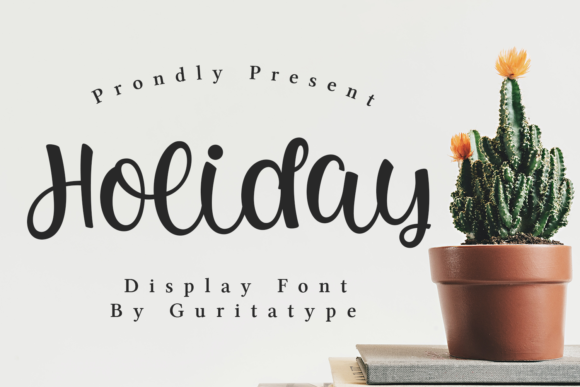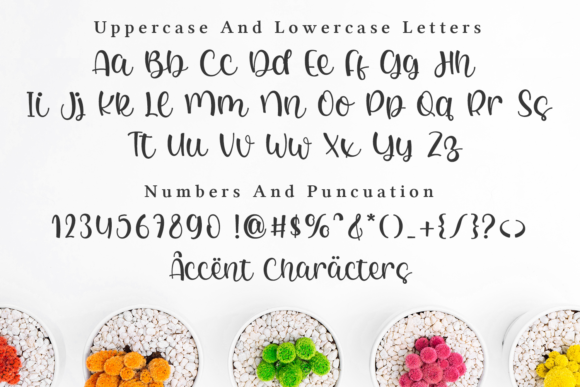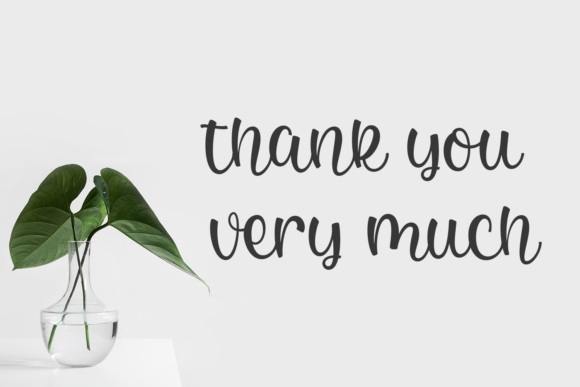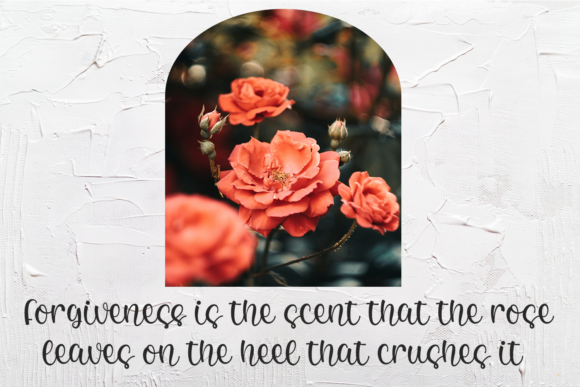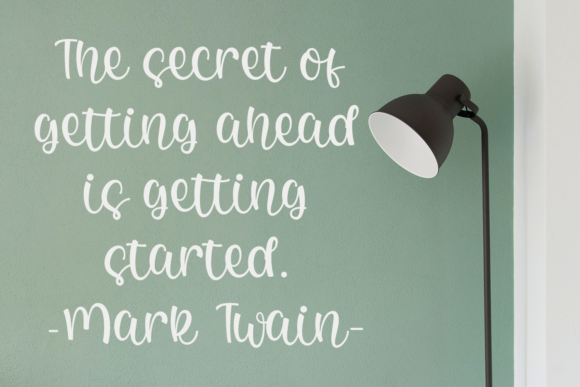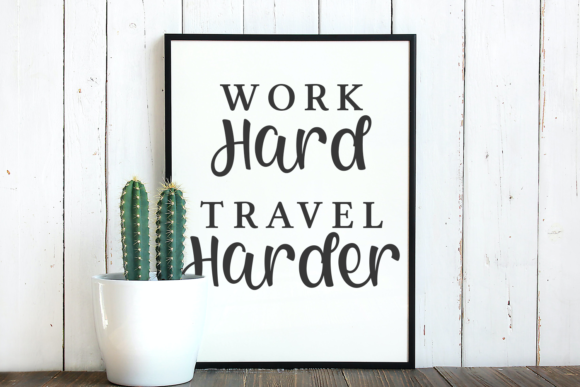
Holiday Font
About Holiday Font
Holiday is a sweet and flowing script font with round letterforms that add a touch of elegance and charm to your designs. Its smooth and graceful strokes create a visually appealing composition that captures attention. This font’s versatility allows it to be matched with a wide range of projects, making them stand out and shine.
The sweet and flowing nature of Holiday sets it apart and adds a sense of joy and sophistication to your designs. The font’s round letterforms create a visually pleasing rhythm and balance, evoking a warm and friendly atmosphere. It adds a touch of elegance and charm, making your creations visually captivating and memorable.
Holiday’s versatility makes it suitable for an incredibly large set of projects. Whether you’re working on branding materials, wedding invitations, greeting cards, social media posts, or any other creative endeavor, this font adapts seamlessly to different contexts. Its smooth and flowing style enhances the overall aesthetic and brings a sense of grace to your designs.
By incorporating Holiday into your projects, you infuse them with a sense of joy and elegance. The font’s sweet and flowing script style adds a touch of charm that makes your designs stand out and shine. Embrace the versatility of Holiday, and notice how it elevates the look of your creative ideas, making them visually captivating and memorable.
In summary, Holiday is a sweet and flowing script font with round letterforms that add elegance and charm to your designs. Its smooth and graceful strokes create a visually appealing composition. Embrace the versatility of Holiday, and let it make your creative ideas stand out, adding a touch of joy and sophistication that captures attention and leaves a lasting impression.